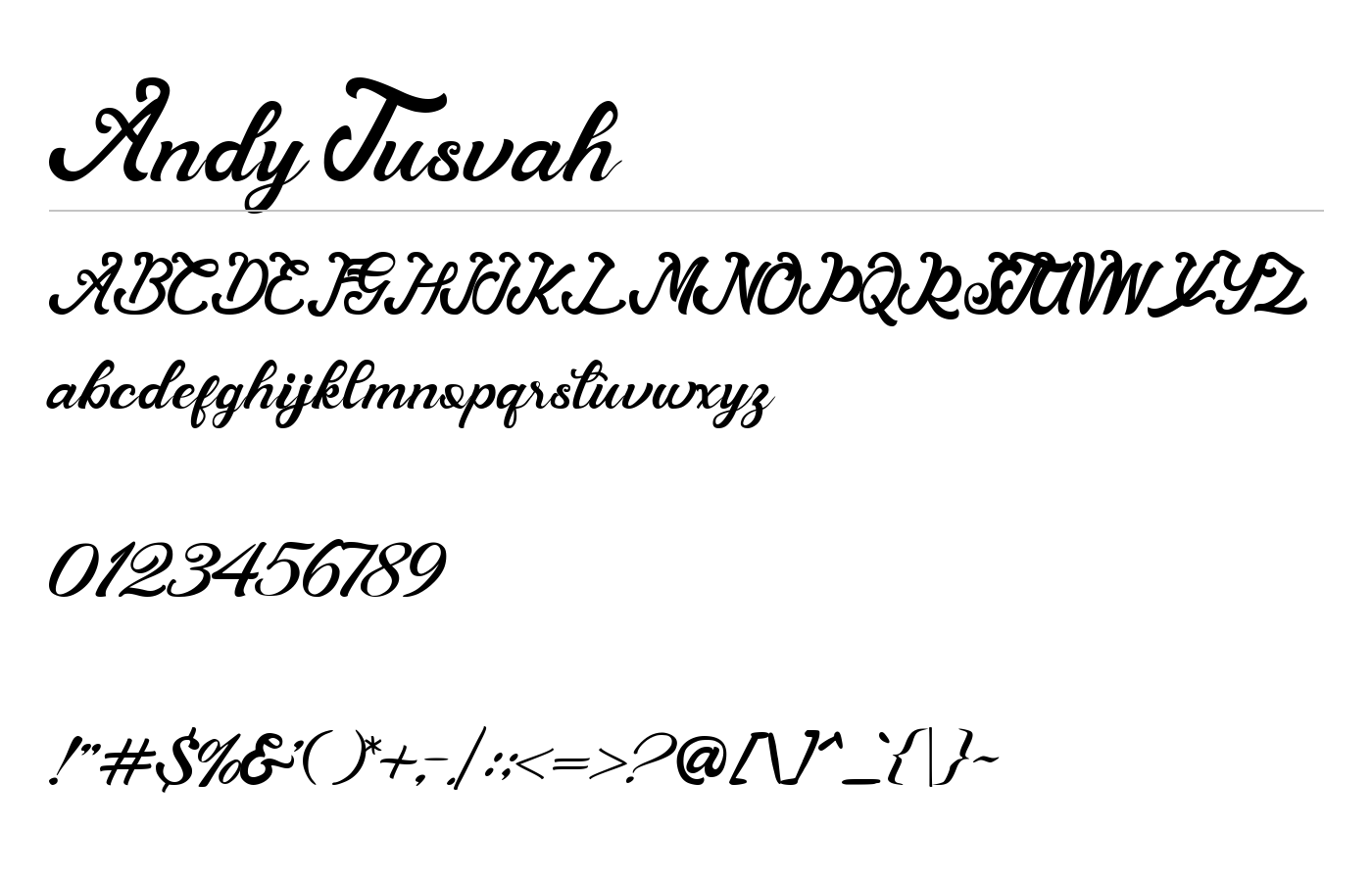
Andy Tusvah is an elegant script font with smooth, flowing strokes and a moderate contrast that gives it a graceful yet approachable feel. Its looping, connected letterforms and distinctive uppercase swirls make it ideal for invitations, branding, and creative headlines where a personal, stylish touch is desired. This font shines in uses that call for a blend of sophistication and charm, perfect for fashion, greeting cards, or artistic projects.
Andy Tusvah Font
About Andy Tusvah Font
| Font family | Andy Tusvah Font |
| Designer | Stringlabs. 2020 |